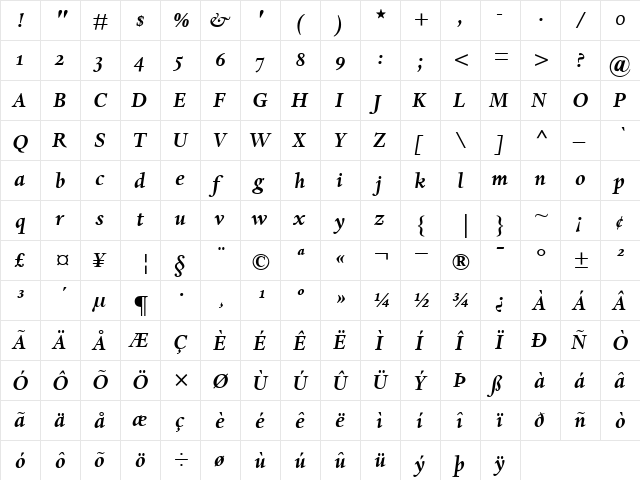
DanteMTOldstyleFigures BoldItalic Font Preview
Design Context for DanteMTOldstyleFigures Typeface
DanteMTOldstyleFigures brings classic typographic sensibility to the table — its serifs and measured letterforms reflect centuries of print heritage. The dynamic lean of this cut emphasises speed and emphasis in any layout. Its bold stroke weight gives it real presence on the page.
Pro Tip: Use DanteMTOldstyleFigures for editorial body copy and considered headline work. Pair with a neutral sans for UI elements or captions to create a classic hierarchy.